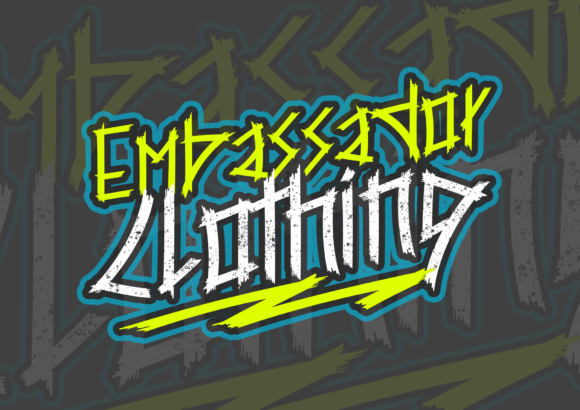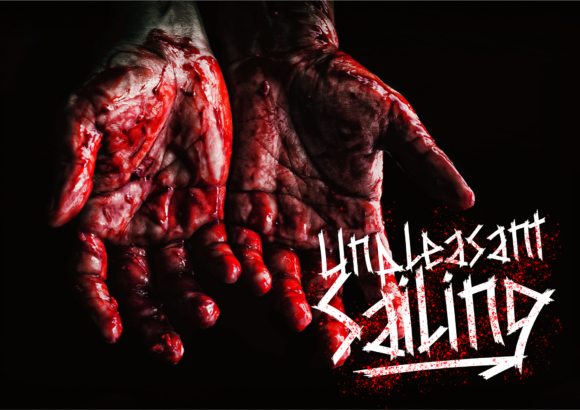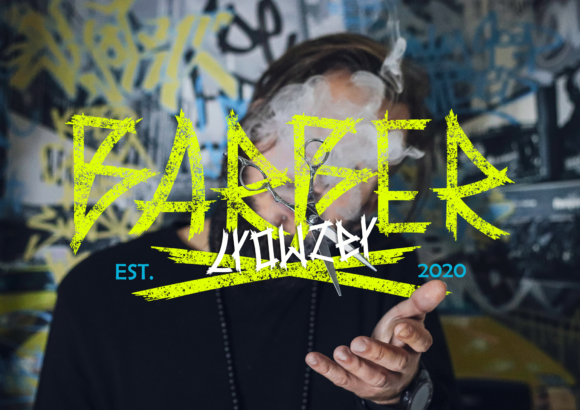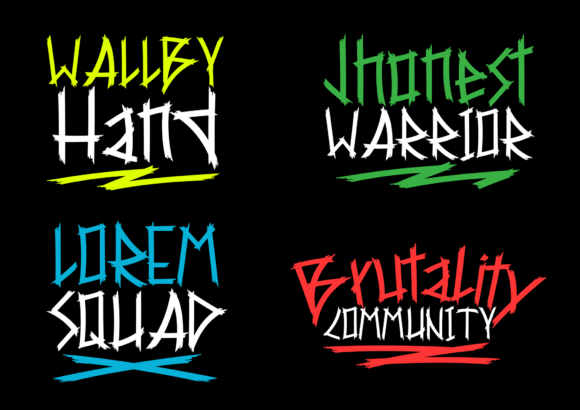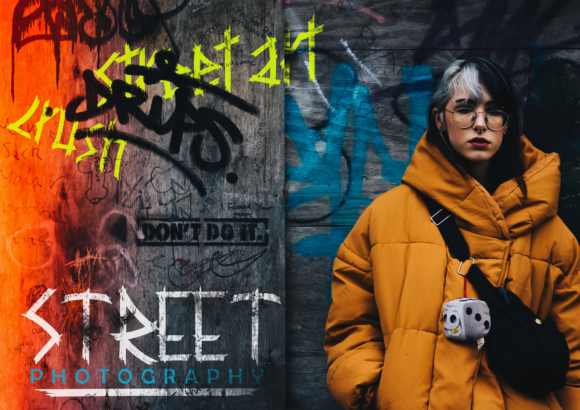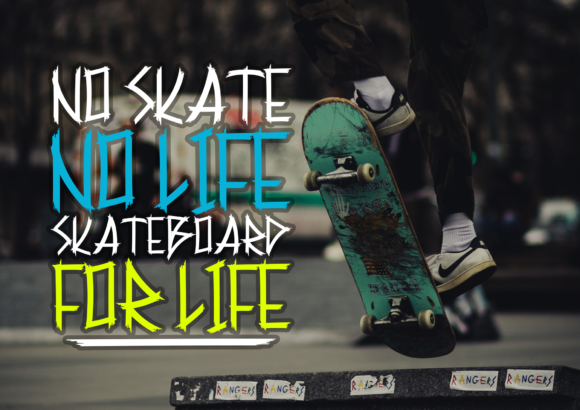
Crowzer Font: The Perfect Addition to Your DIY Projects
Are you a designer or crafter looking for a unique and authentic font to bring your DIY projects to life? Look no further than Crowzer Font. This display font, made with a brush pen, is sure to add a touch of personality and charm to any project. In this article, we’ll take a closer look at Crowzer Font, its features, and how you can use it to take your DIY projects to the next level.
What is Crowzer Font?
Crowzer Font is a display font created with a brush pen, giving it a distinctive and endearing look. The font’s authentic and handcrafted feel makes it perfect for DIY projects, where a personal touch is often desired. Whether you’re working on a craft project, creating a logo, or designing a sign, Crowzer Font is sure to add a unique and eye-catching element.
Features of Crowzer Font
Crowzer Font has several features that make it an excellent choice for DIY projects. Some of its key features include:
- Handmade with a brush pen: The font’s handcrafted look gives it a unique and authentic feel.
- Display font: Crowzer Font is designed to make a statement, making it perfect for headings, titles, and other display text.
- Easy to read: Despite its handmade look, Crowzer Font is easy to read, even at smaller sizes.
- Versatile: Crowzer Font can be used on a variety of projects, from craft signs to logos and more.
How to Use Crowzer Font in Your DIY Projects
Crowzer Font is a versatile font that can be used in a variety of DIY projects. Here are a few ideas to get you started:
- Craft signs: Use Crowzer Font to create eye-catching signs for your craft fairs, markets, or store.
- Logo design: Add a personal touch to your logo with Crowzer Font, making it stand out from the crowd.
- DIY packaging: Use Crowzer Font to create custom labels and packaging for your products.
- Social media graphics: Add a touch of personality to your social media graphics with Crowzer Font.
Tips for Using Crowzer Font
Here are a few tips for using Crowzer Font in your DIY projects:
- Use it sparingly: Crowzer Font is a display font, so use it sparingly to make a bigger impact.
- Pair it with other fonts: Pair Crowzer Font with other fonts to create a unique and interesting contrast.
- Experiment with colors: Crowzer Font looks great in a variety of colors, so don’t be afraid to experiment and find the perfect hue for your project.
Crowzer Font is a unique and authentic font that’s perfect for DIY projects. Its handmade look and feel make it a great addition to any project, from craft signs to logos and more. With its versatility and ease of use, Crowzer Font is sure to become a favorite among designers and crafters. So why not give it a try and see how it can bring your DIY projects to life?